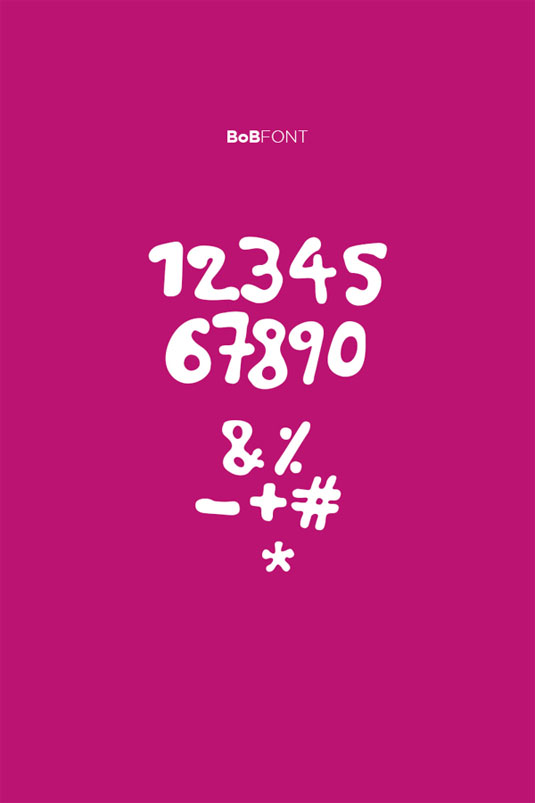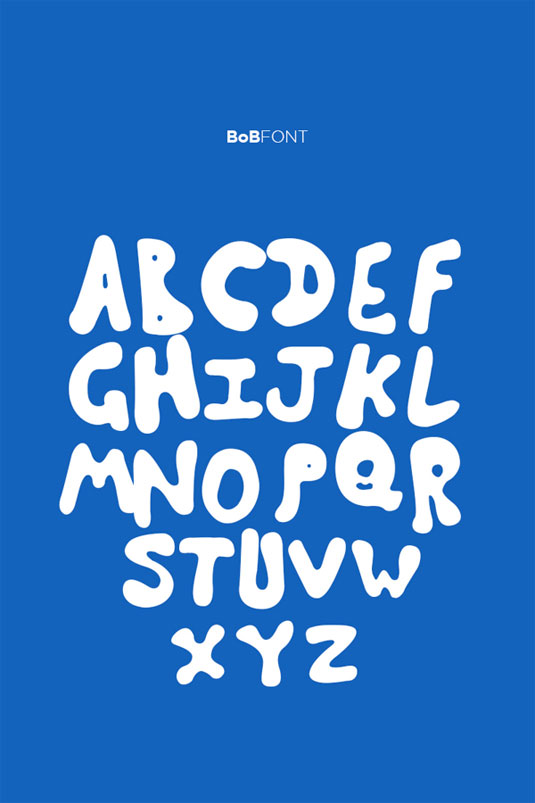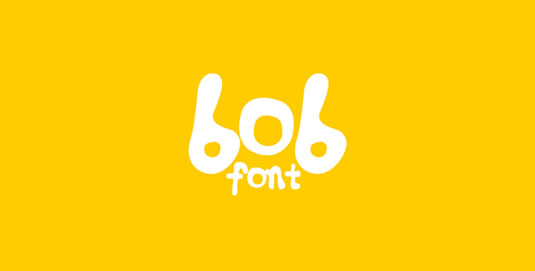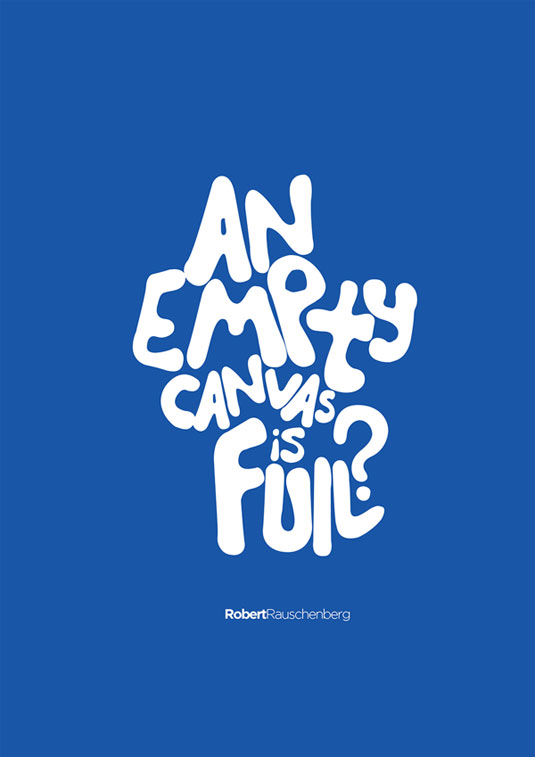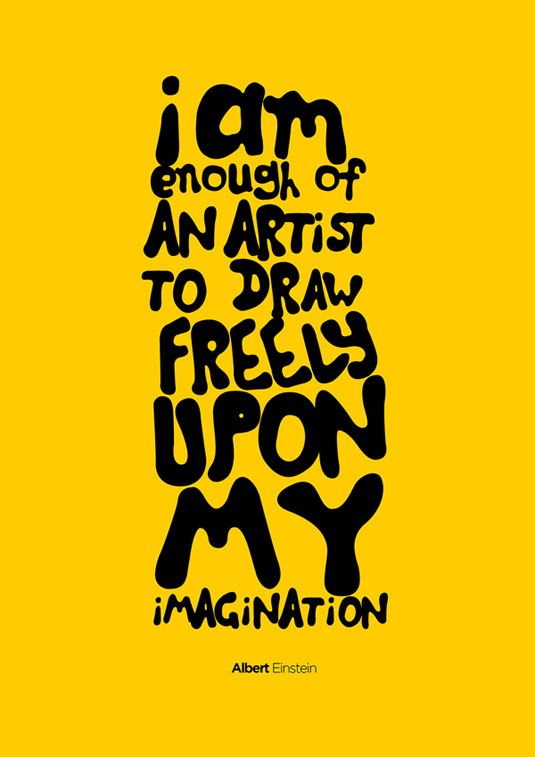
Font of the day: BoB
BoB by Zarni
Inspired by the playful asethics of illustration, Burma-based typographer Zarni has created the BoB font. Offering it up as a free download, this kind of typography is perfect for experimentation and will work wonders on posters and headlines.
Coming in capital and lower case letters, BoB also includes numerical symbols as well as a variety of punctuation marks. You can use BoB for pretty much anything - just be sure to show Zarni some love.